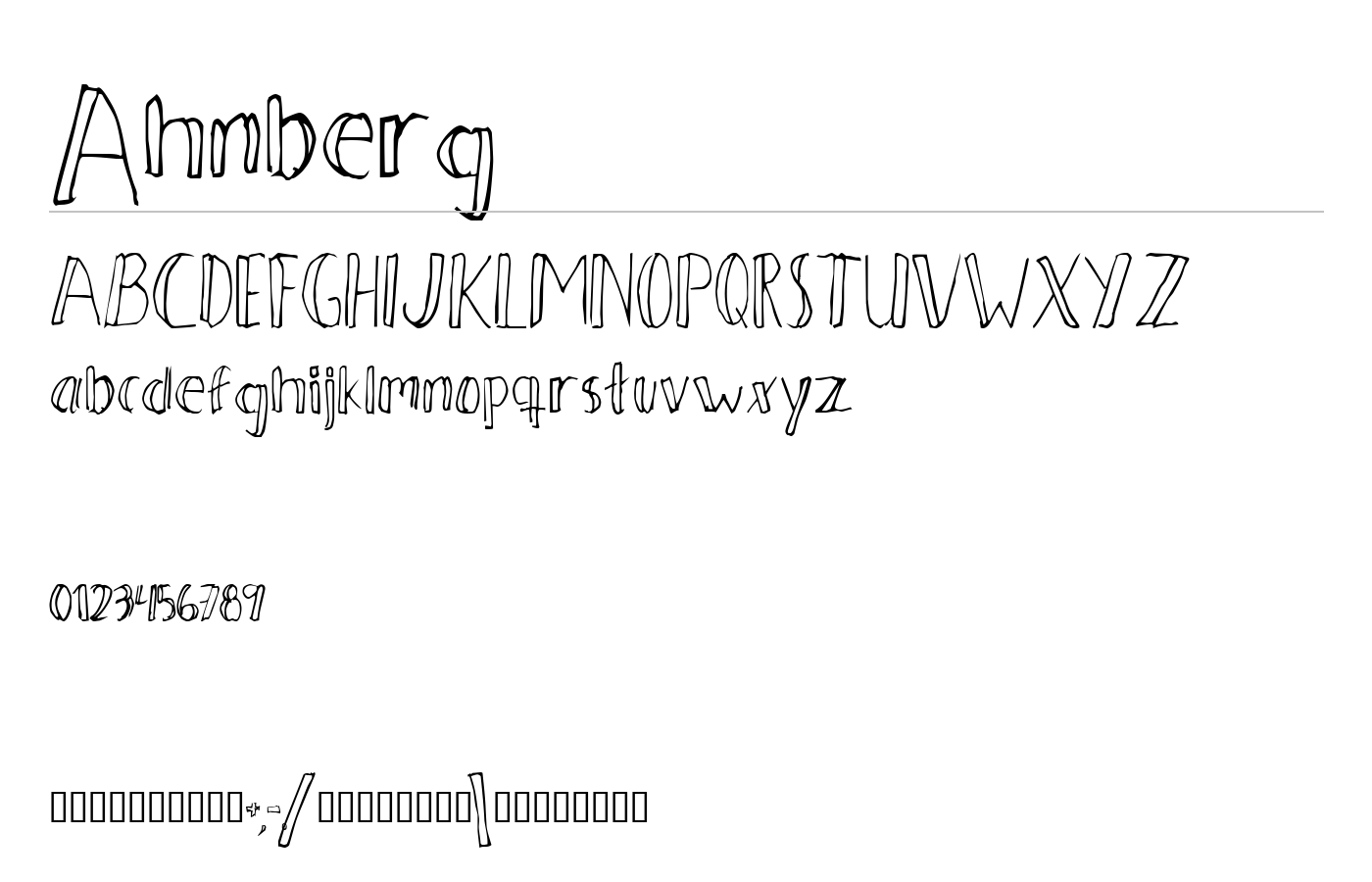
Ahnberg is a narrow, hand-drawn serif font with a quirky and artistic character, featuring tall, slightly irregular letterforms and thin strokes that give it a whimsical, organic feel. Its delicate lines and playful shapes make it ideal for creative projects, eye-catching headlines, or branding that seeks a unique, handcrafted touch with a vintage flair. This font works well where personality and individuality are needed, such as in posters, invitations, or artistic logos.
Ahnberg Font
About Ahnberg Font